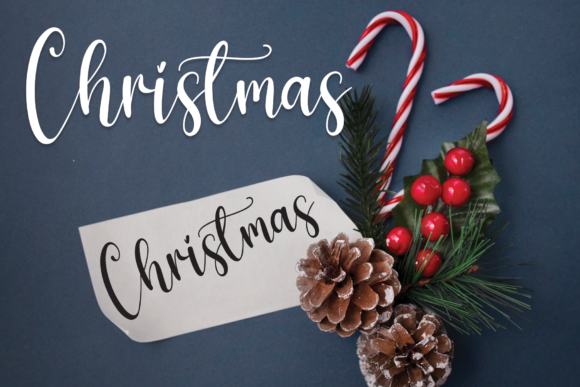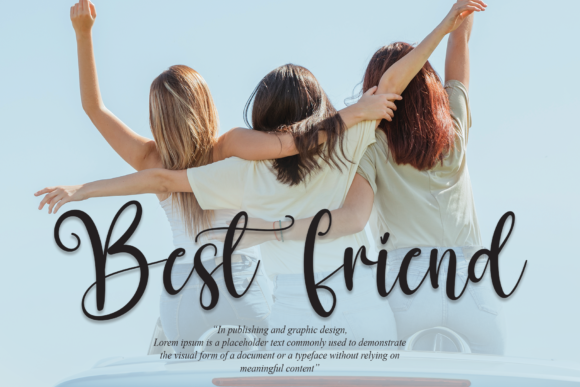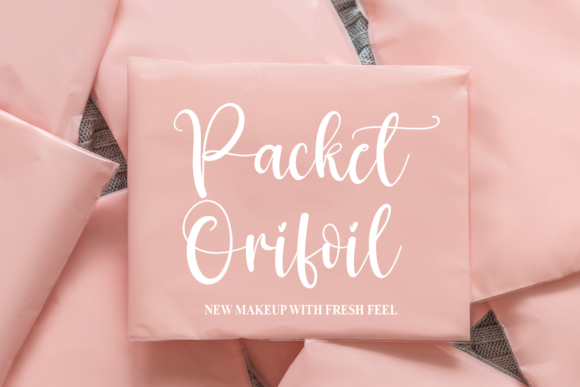
About Hello Grinch Font
Hello Grinch is a bold and beautiful handwritten font. It is perfect for wall displays, wedding invitations, social media post logos,
advertisements, product packaging, product designs, labels, photography, watermarks, invitations, stationery, and any project that requires unique typography!